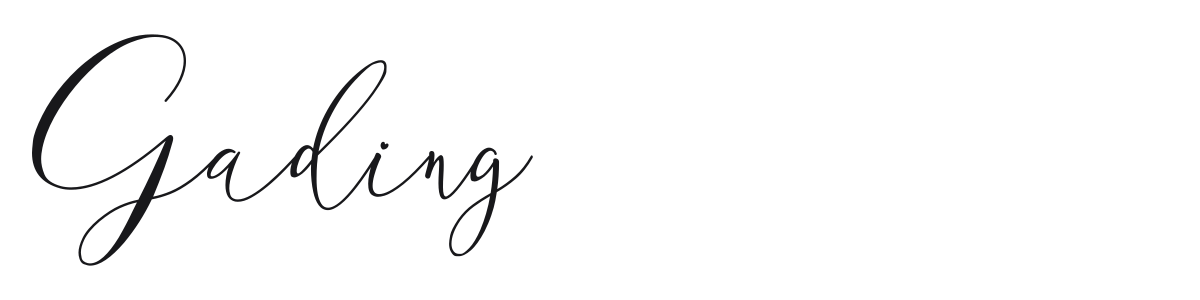
Gading
by Sarif Letter
Gading is a flowing calligraphic script by Nox Studio with high stroke contrast and long, looping ascenders that give it an airy, romantic feel. Rooted in copperplate tradition, its delicate hairline strokes and smooth character connections make it feel hand-lettered without feeling rough. Strong choice for wedding stationery, branding, and editorial headlines where elegance is the point.